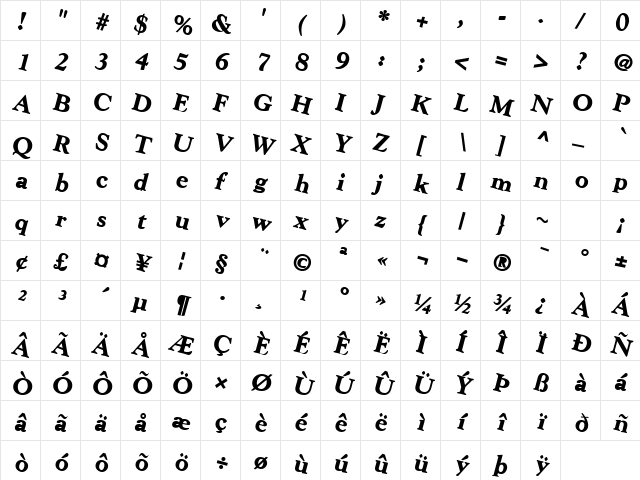
VageParable39 Bold
Design Context for VageParable39
VageParable39 is a composed and adaptable typeface that performs quietly and consistently across a wide range of design contexts. Its bold stroke weight gives it real presence on the page.
Pro Tip: Use VageParable39 in both headline and body roles to test its range before committing to a single application.